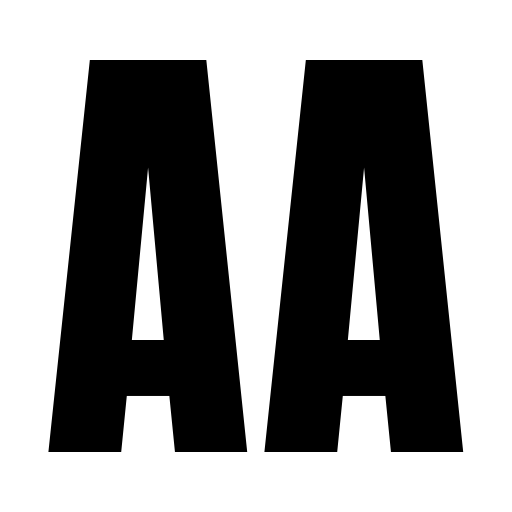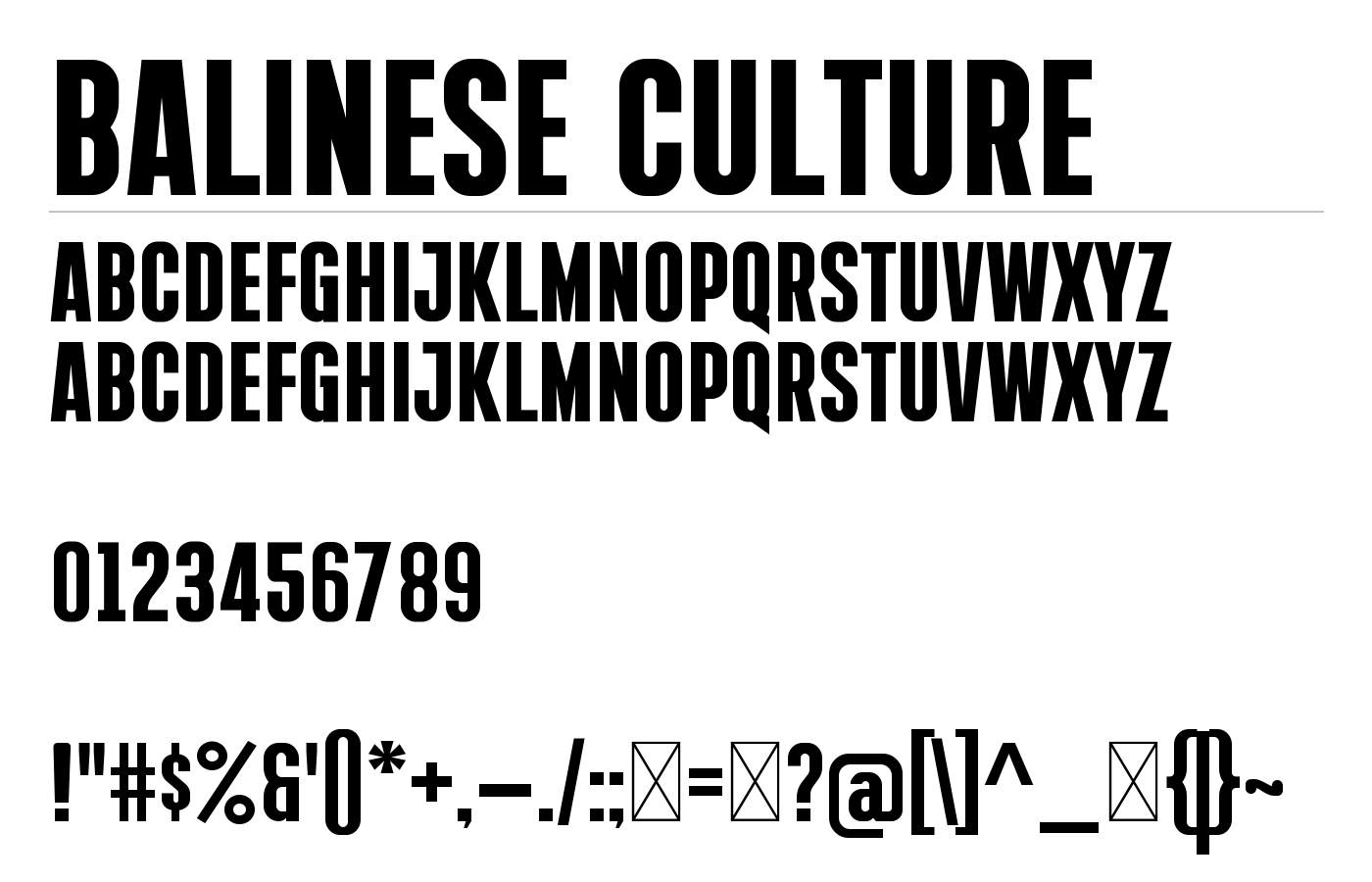
Balinese Culture Font is a bold, condensed sans serif typeface featuring tall uppercase letters with sharp, clean edges and consistent stroke weight. Its strong geometric shapes and narrow width give it a commanding, modern feel, ideal for impactful headlines or branding that needs to convey confidence and style. This font works well for posters, logos, and editorial titles where a striking, urban aesthetic is desired.
Balinese Culture Font
About Balinese Culture Font
| Designer | Usman Albaehaqi |